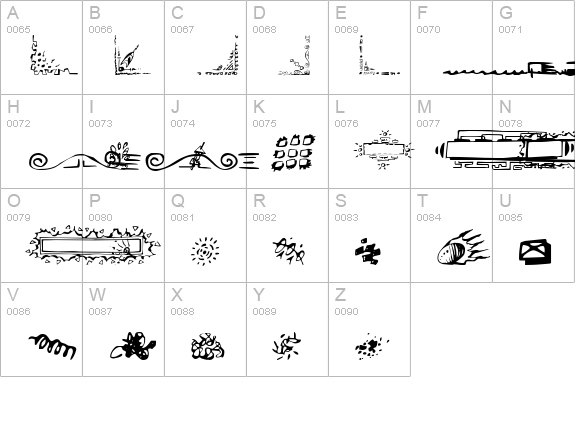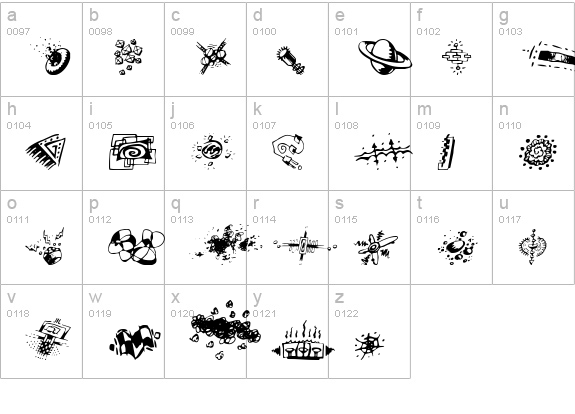
Doodle Art Font Details
Doodle Art font is a whimsical and playful typeface that brings a touch of creativity to any design project. With its hand-drawn style and quirky elements, this font is perfect for adding a fun and unique look to your designs. Whether you're working on a poster, invitation, or branding project, Doodle Art font will help you stand out from the crowd. Best of all, Doodle Art font is completely free to download at FontsMarket.com. This means you can add this charming font to your collection without breaking the bank. So why wait? Download Doodle Art font today and let your imagination run wild!